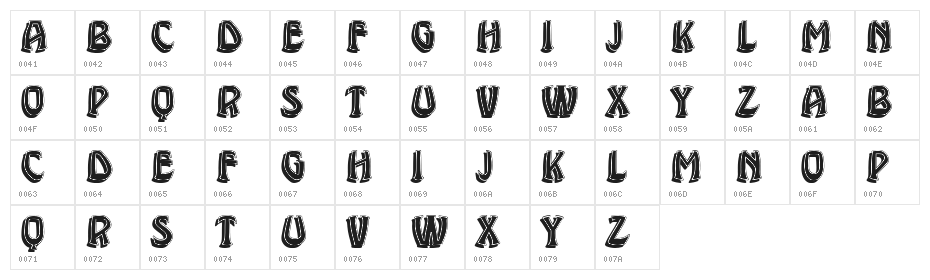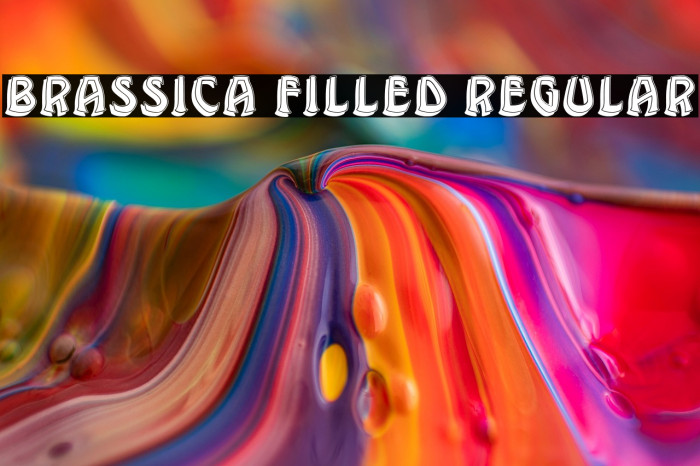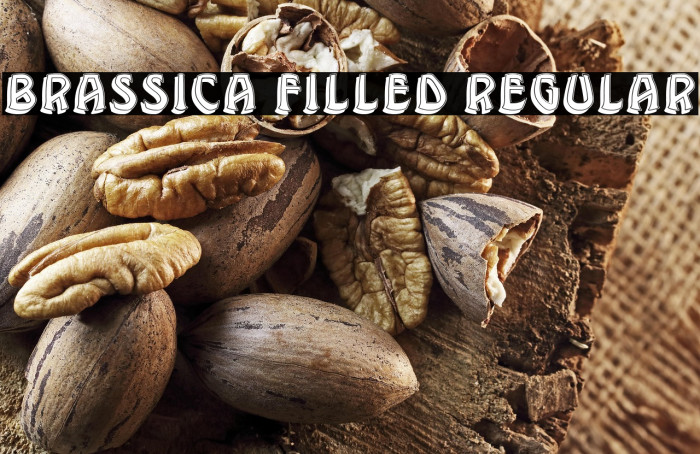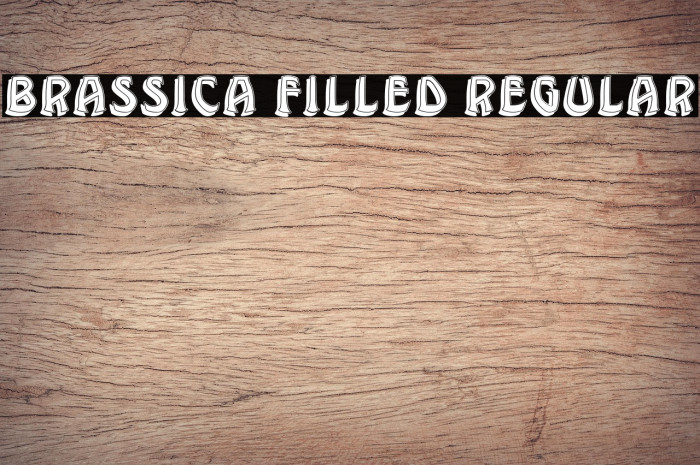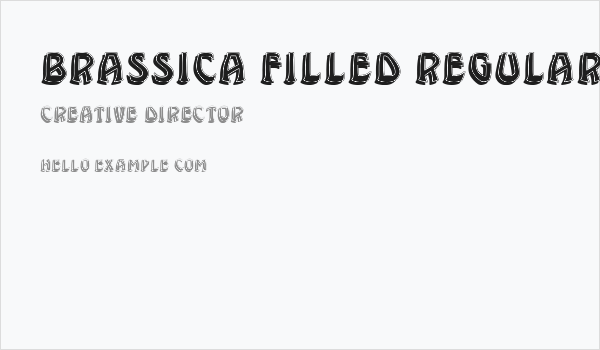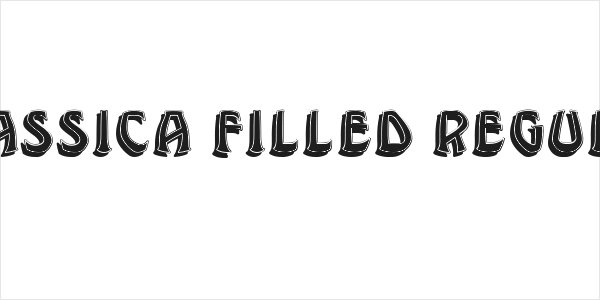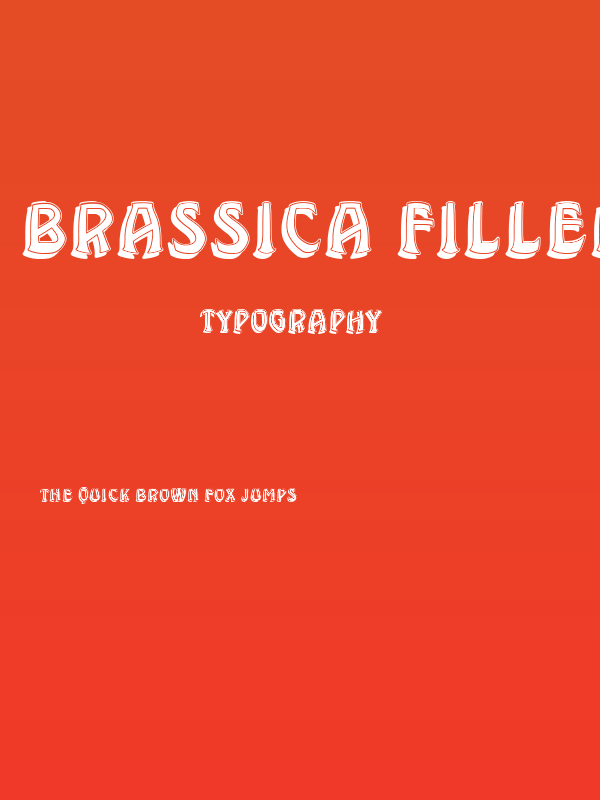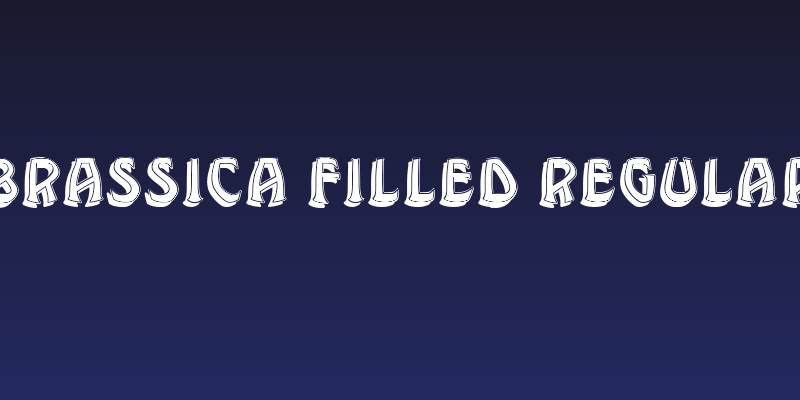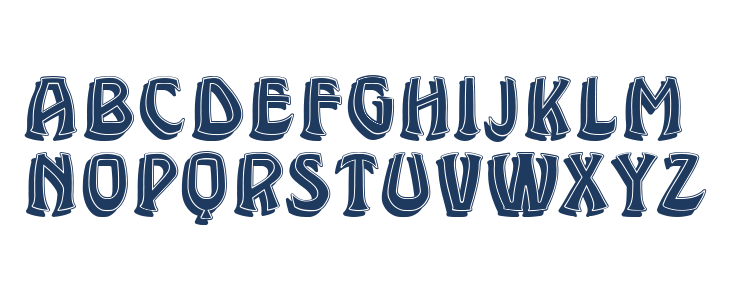
Brassica Filled Regular Font
Brassica Filled Regular Description
This font features a bold and decorative style with a three-dimensional effect, achieved through a filled, shadowed design. The characters have a playful and dynamic appearance, making them stand out with their thick strokes and unique contours. The uppercase letters are particularly striking, with a strong presence that commands attention. The font's design includes subtle curves and angles that add to its distinctive look, while maintaining readability. Its boldness and decorative elements make it suitable for eye-catching designs.
| Proposed Projects | Ideal for posters, headlines, logos, and any design requiring a bold, attention-grabbing typeface. |